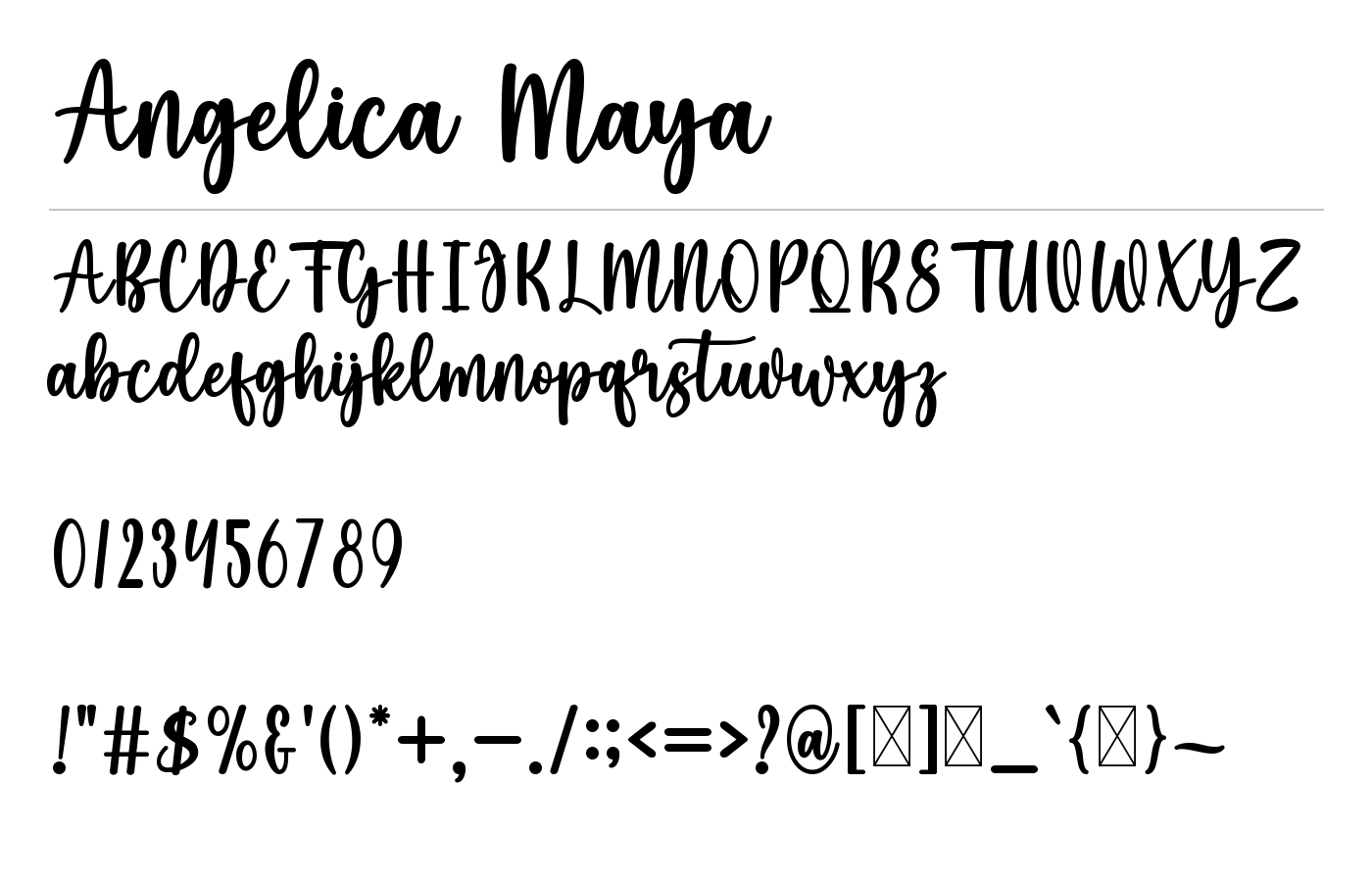
Angelica Maya is a lively and charming script font with a smooth, handwritten style that combines casual elegance and readability. Its medium weight, tall x-height, and flowing letterforms make it ideal for branding, invitations, and creative projects that want to convey a friendly, approachable, yet stylish personality. This font works well in both headlines and short text, adding a warm and personal touch to designs.
Angelica Maya Font
About Angelica Maya Font
| Font family | Angelica Maya Font |
| Designer | Wahyu Setiyawan |